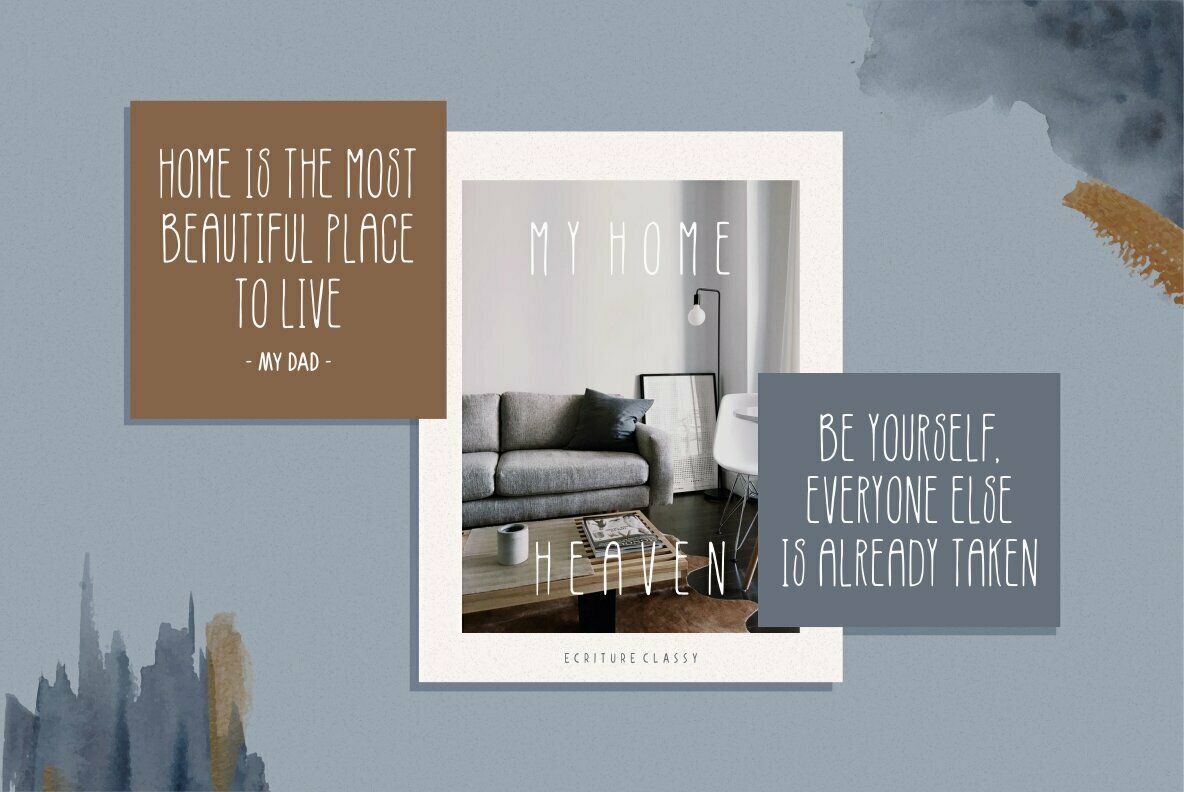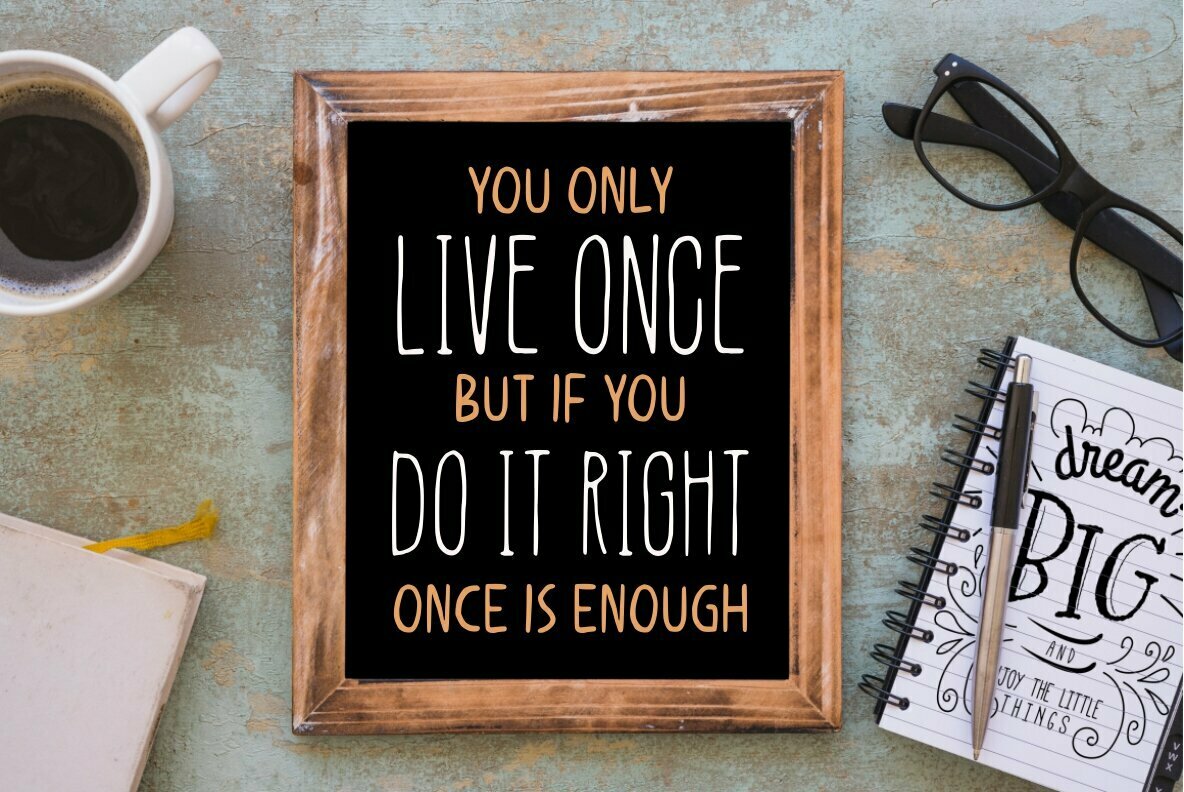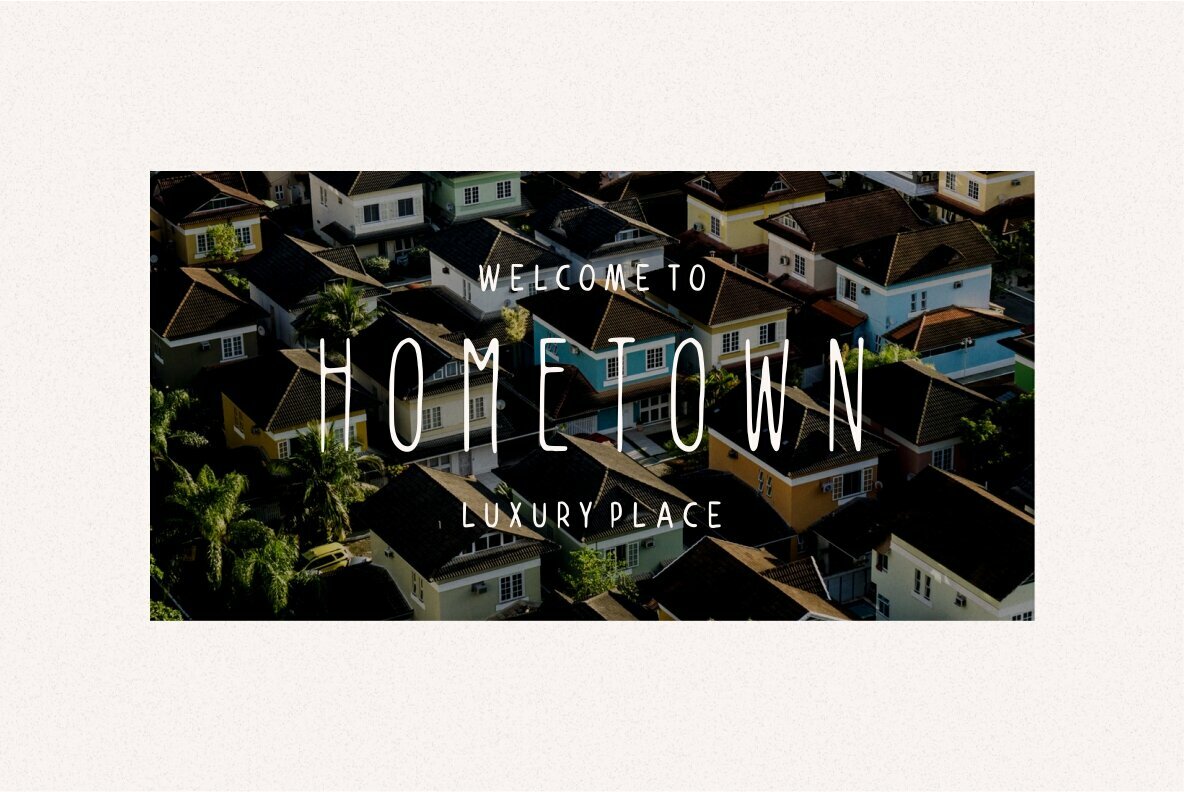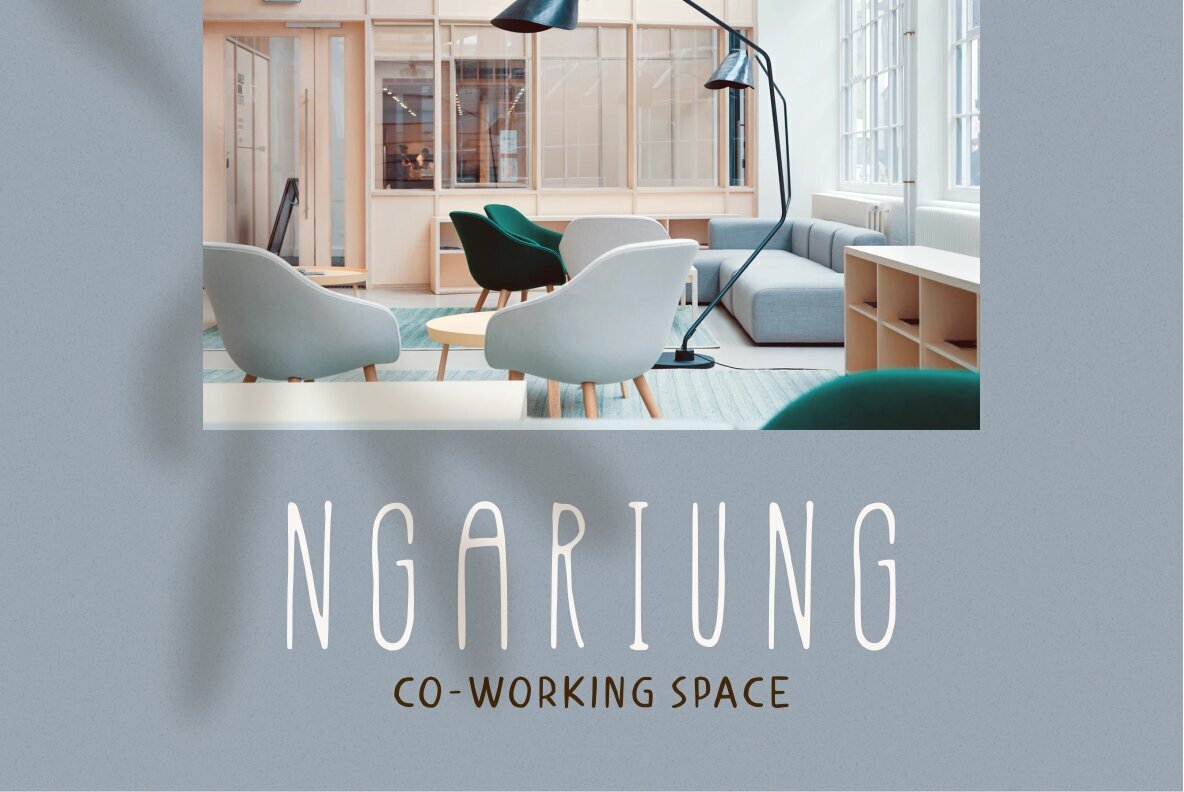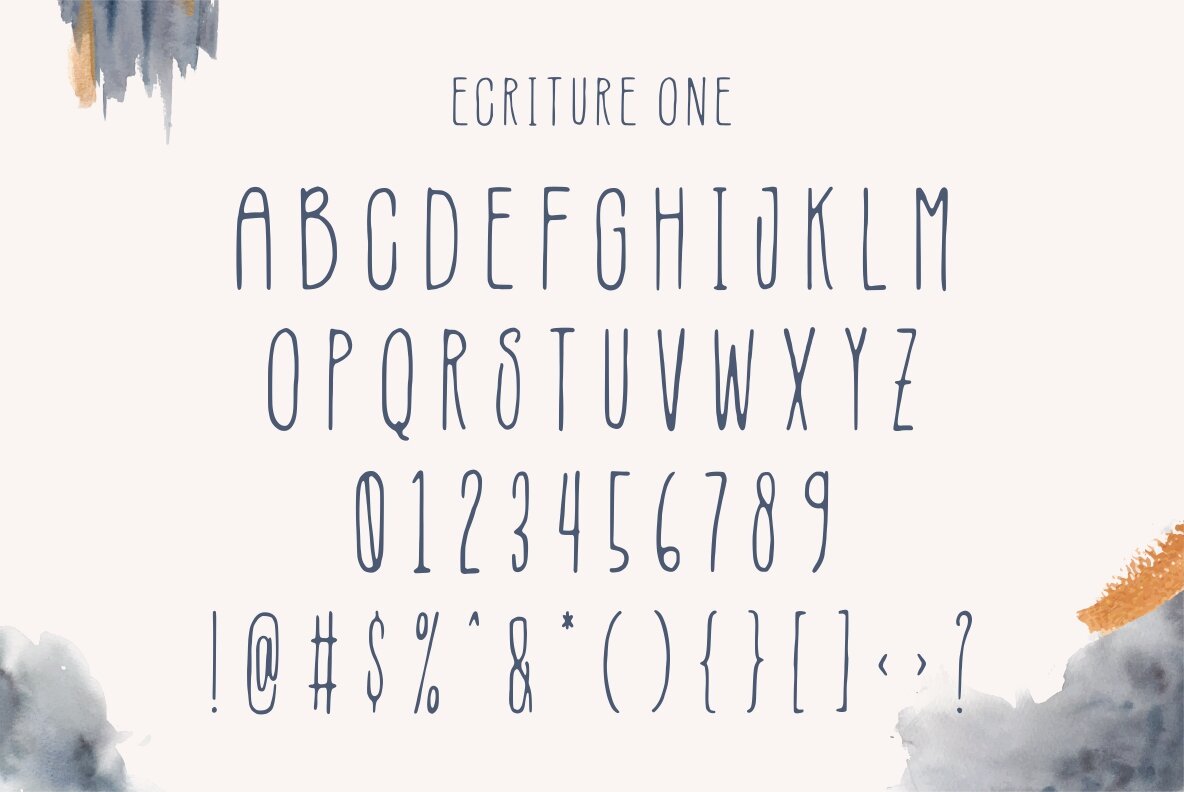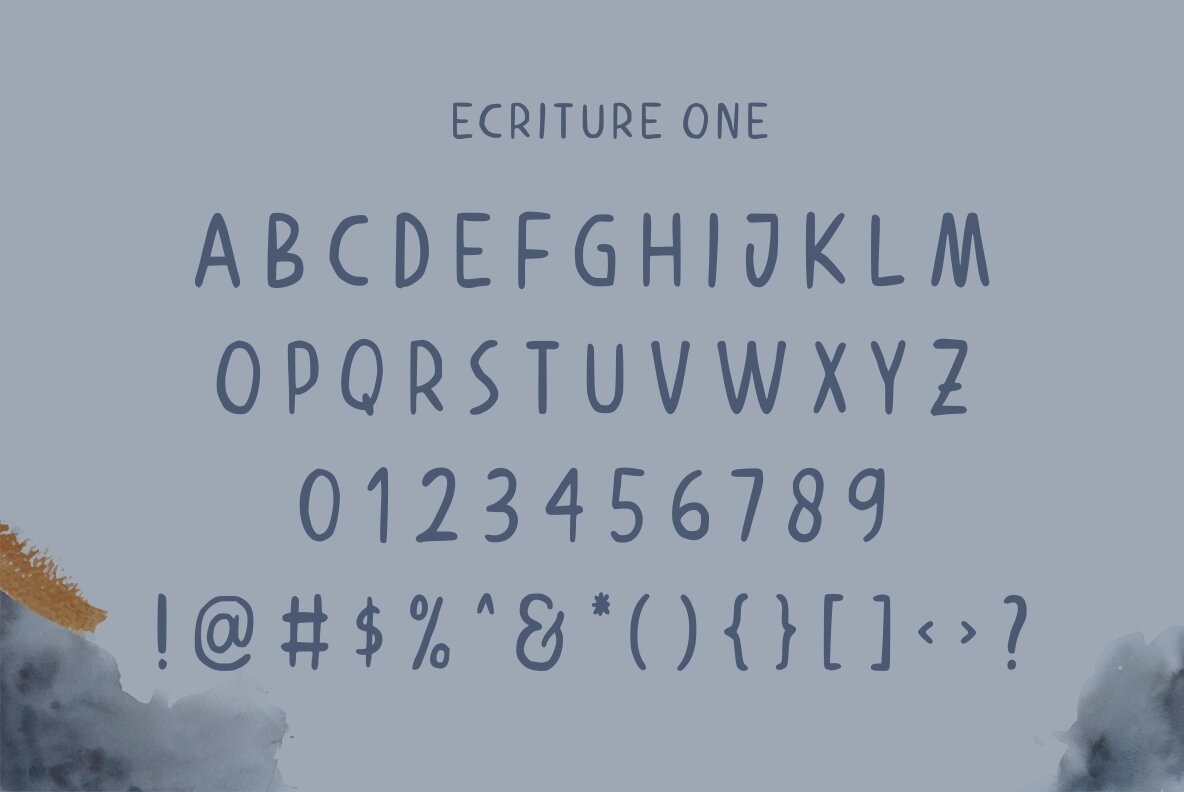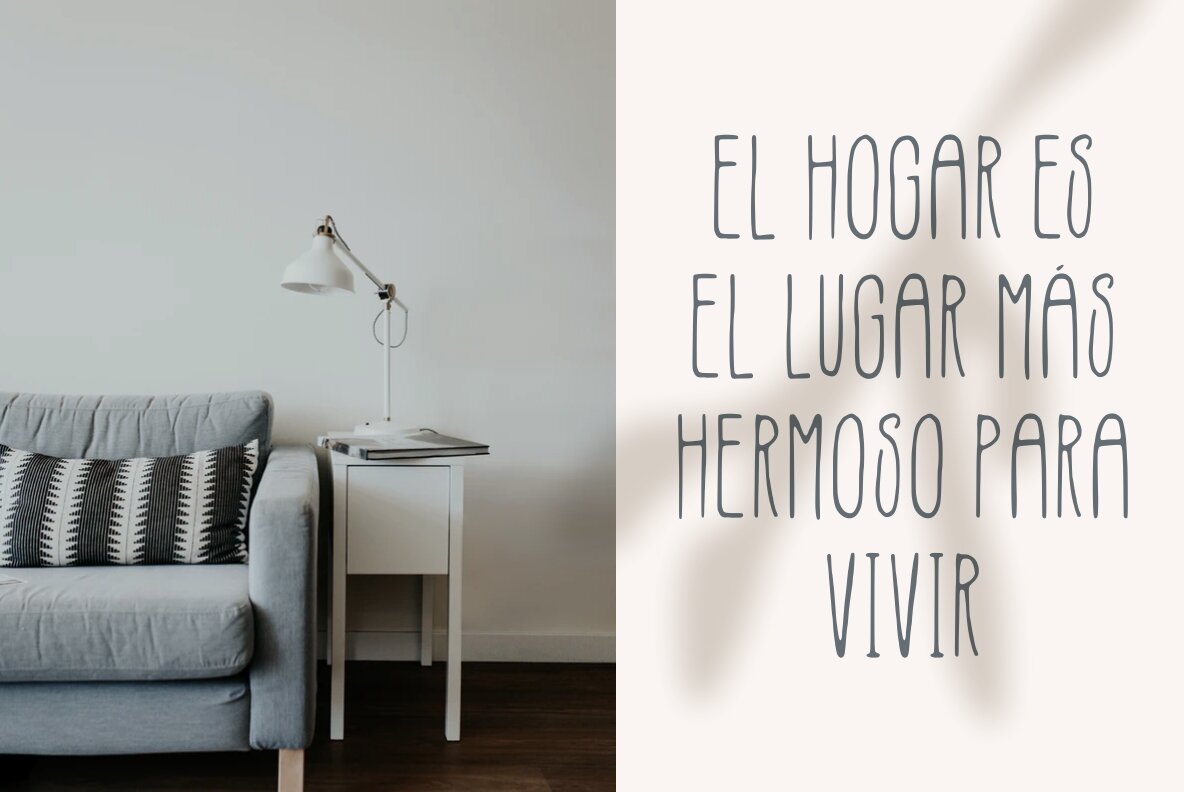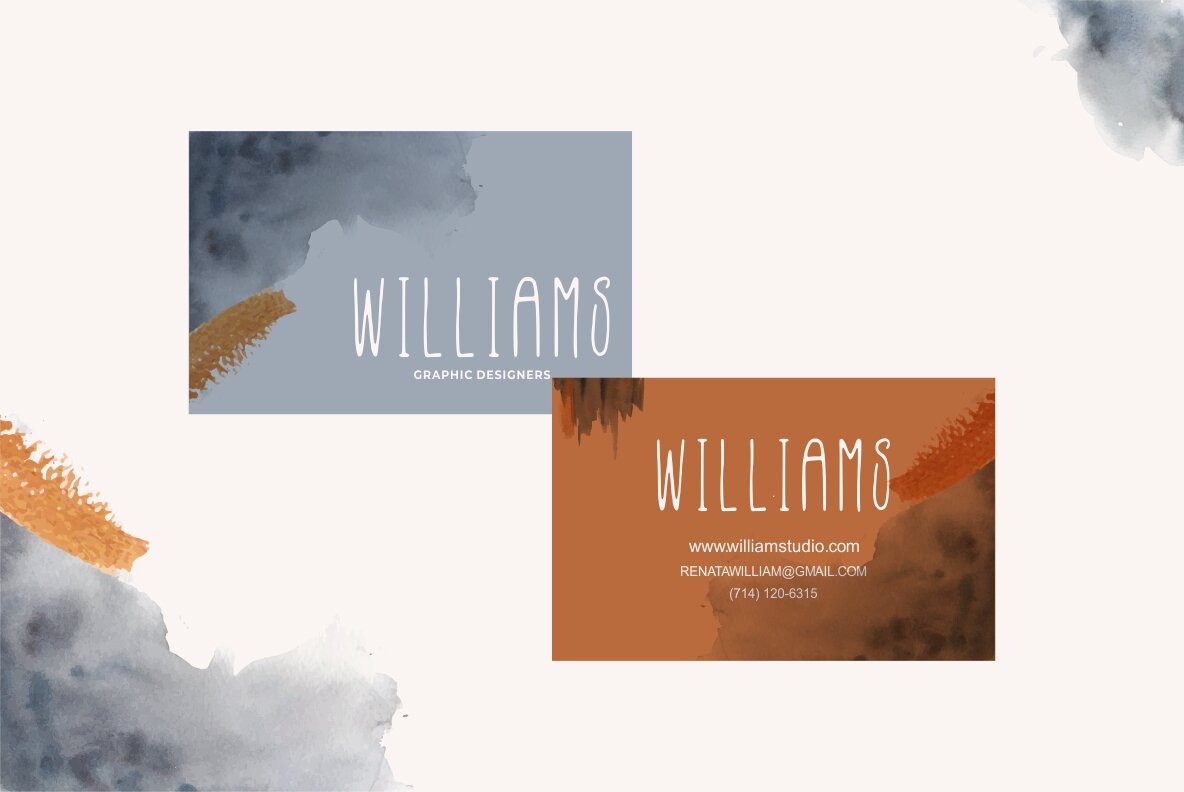
Ecriture Font
Ecriture captures the essence of a classic, hand-crafted aesthetic, bringing an artisanal touch to every project. This font is perfect for those who seek to convey authenticity and charm in their designs. It's ideally suited for a diverse range of applications, from branding materials to business cards, t-shirts, and posters. Ecriture provides a distinctive look that resonates with the spirit of hand-drawn creativity. Features:Ecriture: Hand-Drawn Elegance for Timeless Design